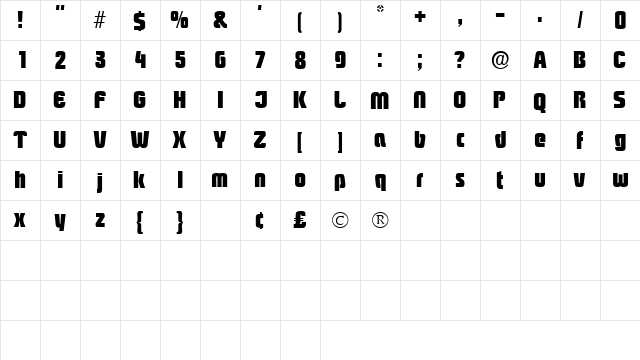
BoozleSSK Regular
Design Context for BoozleSSK Typeface
BoozleSSK offers clean, dependable letterforms without strong stylistic allegiance, making it a practical choice for designers who need flexibility.